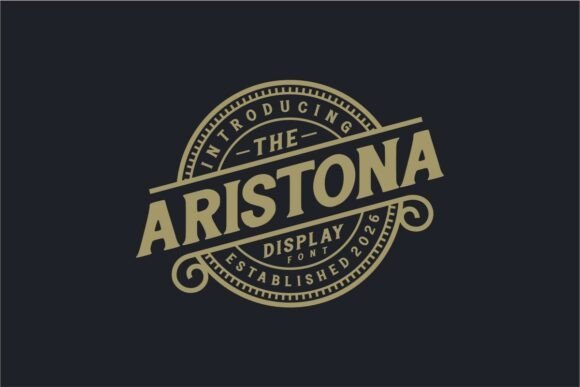
Introduction to Aristona Font
ARISTONA is a bold vintage display font inspired by classic signage, heritage branding, and old-world craftsmanship.
Designed with strong serif structures, elegant curves, and ornamental details, ARISTONA evokes a sense of tradition, authority, and timeless sophistication Its distinctive letterforms combine industrial strength with refined elegance , making it ideal for logos, badges, packaging, labels, posters, restaurant branding, liquor & coffee brands, fashion labels, and premium editorial designs.
Key Features of Aristona Font
Why Choose Aristona Font?